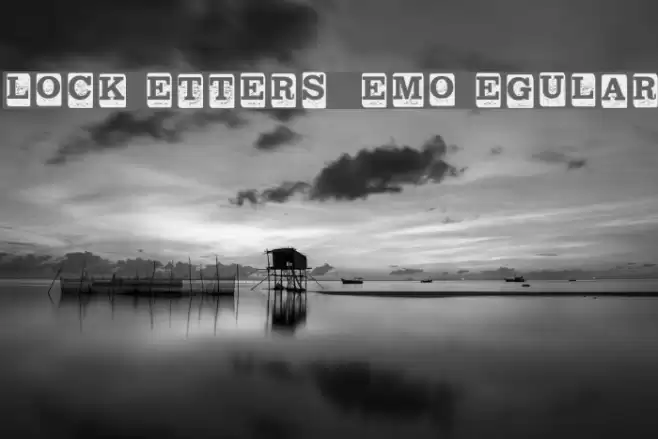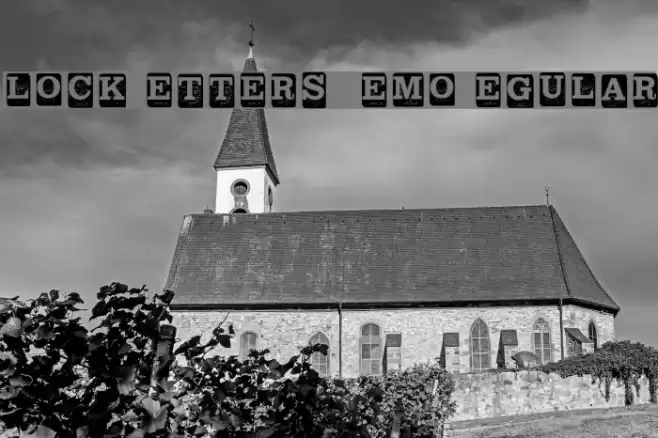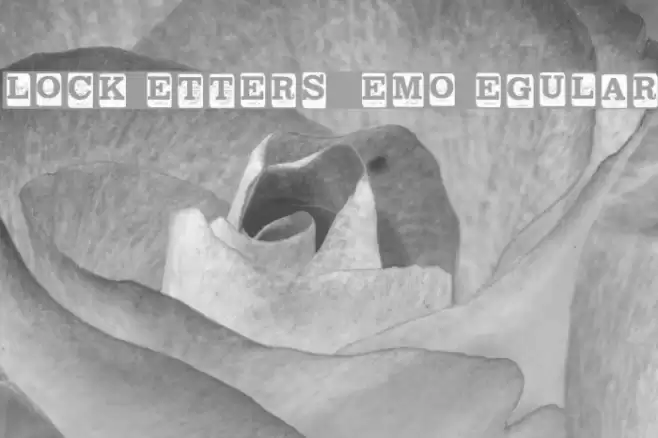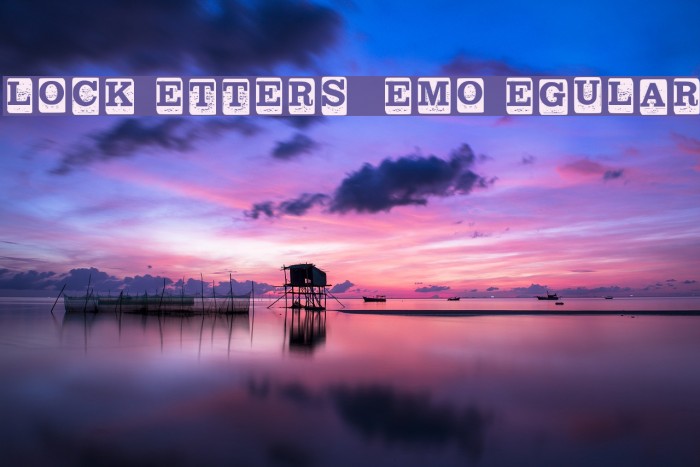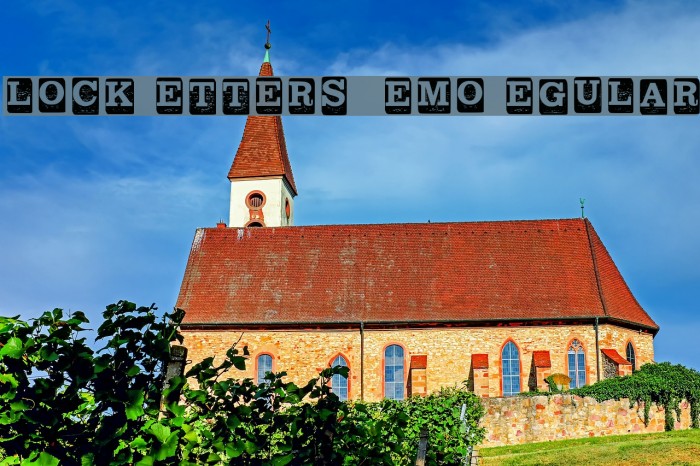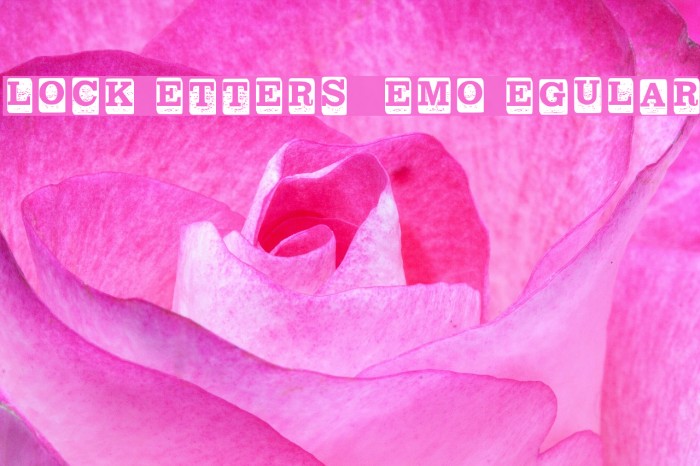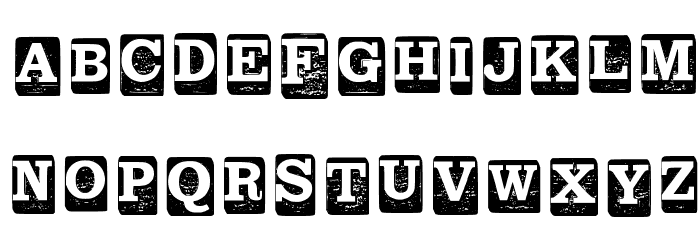
Block Letters _ Demo Regular Font
Block Letters _ Demo Regular Description
This font features bold, uppercase letters with a distressed, vintage appearance. Each character is enclosed within a solid black square, giving it a block-like structure. The letters are white with a textured, worn-out effect that adds a rustic charm. The style is reminiscent of old typewriter keys or vintage signage, making it stand out with its unique aesthetic. The font lacks lowercase letters, focusing solely on uppercase characters, which enhances its bold and impactful presence. The overall design is both decorative and functional, suitable for projects that require a strong visual statement.
A bold, vintage-style font with distressed uppercase letters in block format from Uncategorized fonts.
- Proposed Projects: Ideal for retro-themed designs, posters, logos, and branding that require a bold, vintage aesthetic.
- Overall Style: Vintage